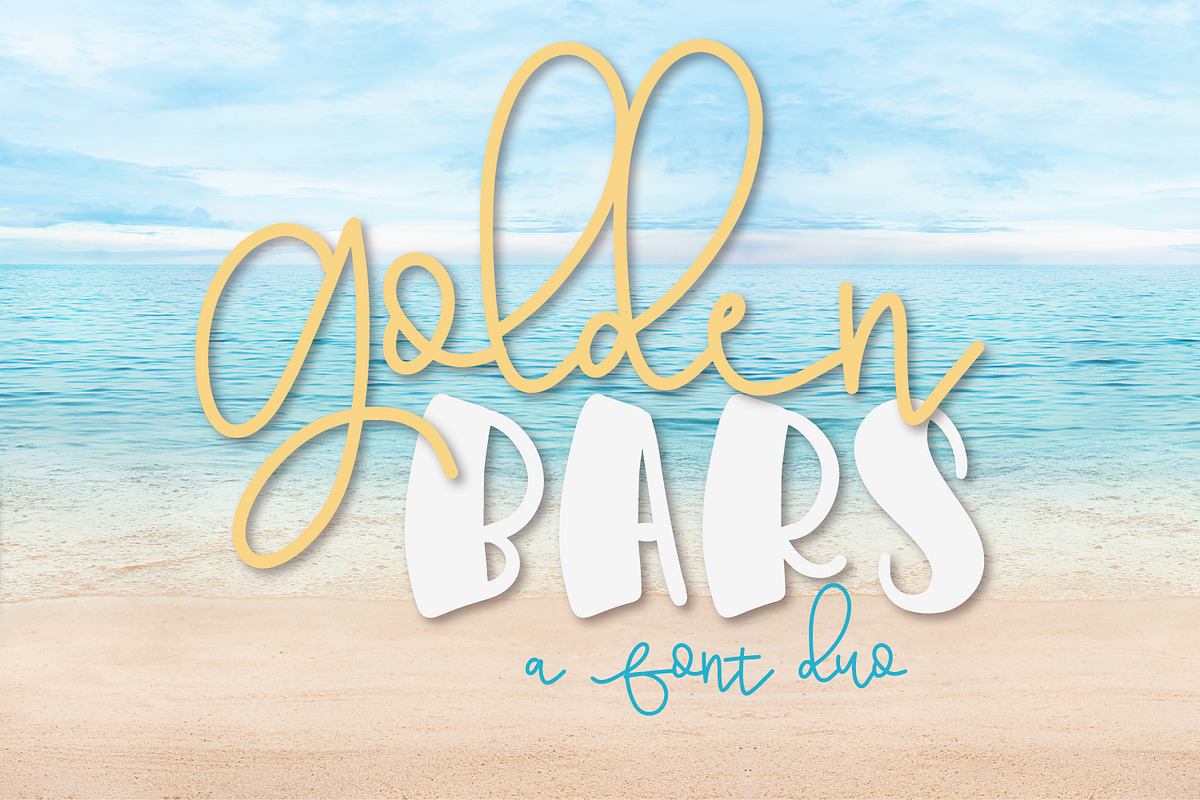
Golden Bars - A Font Pair Free Download
Golden Bars Font - A Font Pair Free Download
Elevate your designs with Golden Bars Font - A Font Pair Free Download. This carefully crafted font pair includes a stunning script font combined with a strong, complementary sans serif—perfect for creating luxurious, sophisticated designs for branding, invitations, posters, logos, and more.
The Golden Bars Font features elegant curves and a modern brush script style, paired seamlessly with a clean and bold sans serif. Together, they create a harmonious balance that adds both style and readability to any layout. The pair includes uppercase and lowercase letters, numerals, punctuation, and stylistic alternates, giving you full creative freedom to test bold and stylish compositions.